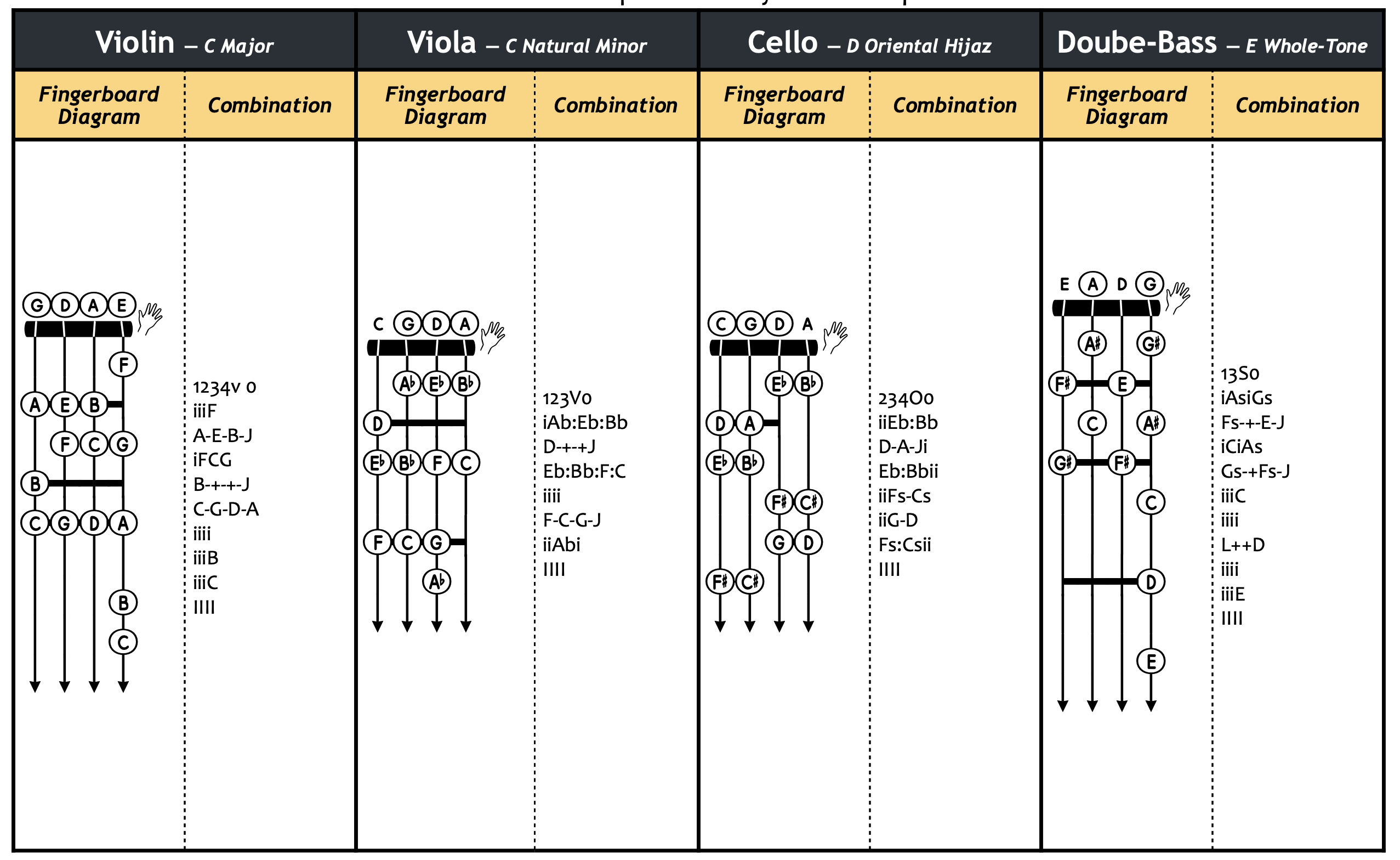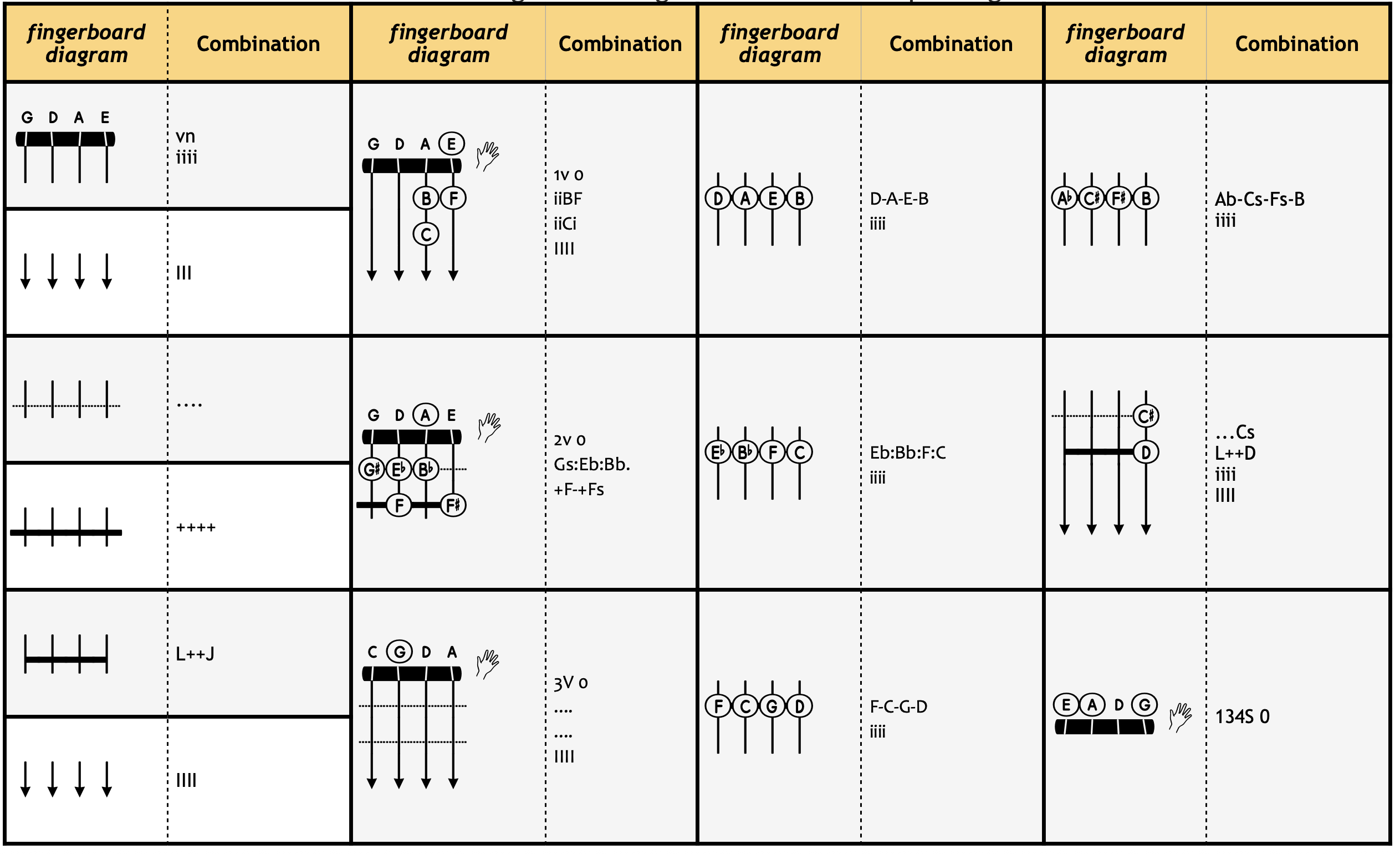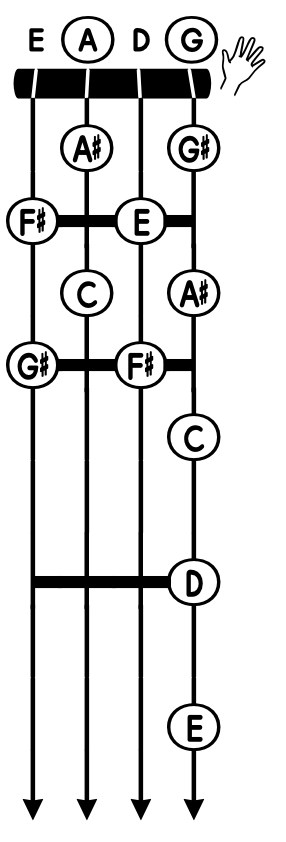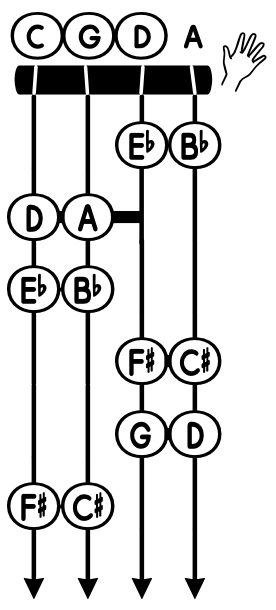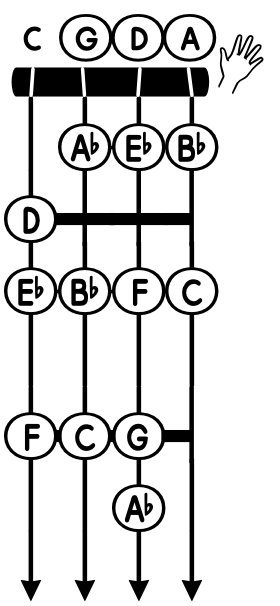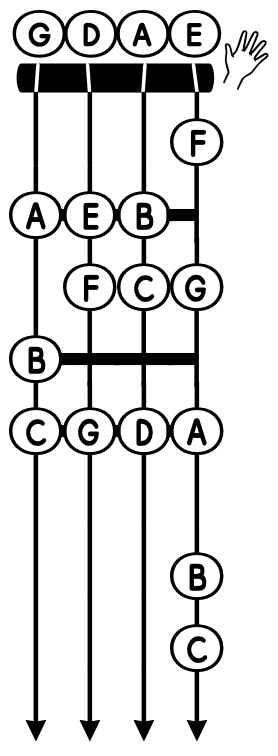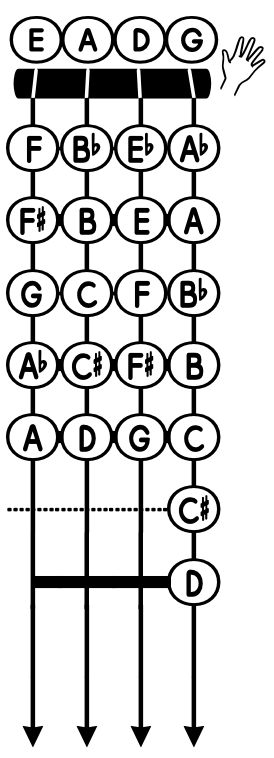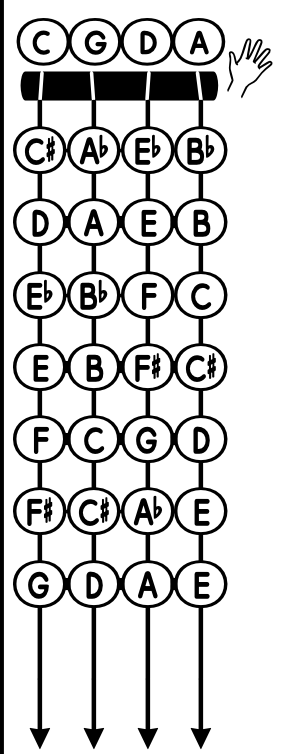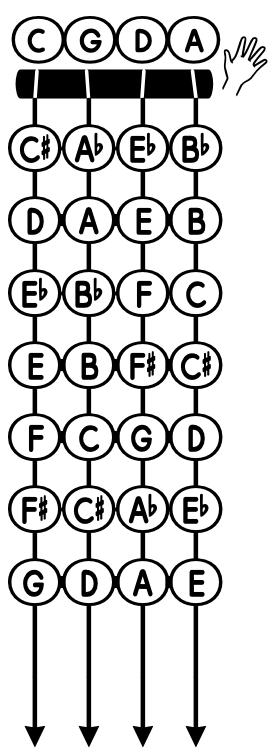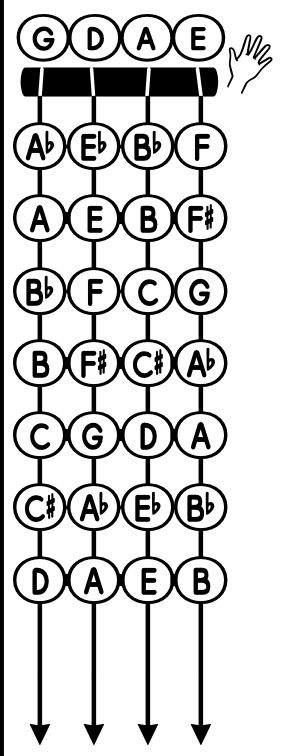
FingStrings: The Ultimate Font for String Instrument Education
FingStrings is a revolutionary font that empowers teachers and students to design custom diagrams for violin, viola, cello, and double bass. With this innovative tool, users can effortlessly illustrate finger positions on the neck and highlight specific pitches, making it an invaluable resource for elementary string instrument instruction.
Beyond basic fingering charts, FingStrings allows educators to place scale diagrams directly above lead sheets, giving students a clear visual reference for understanding scales, musical runs, and complex structures. Whether you’re developing lesson materials or creating comprehensive method books, this versatile font streamlines the process with ease and precision.
Exclusively crafted for string instrument educators, FingStrings bridges the gap between theory and practice by delivering unmatched clarity and visual comprehension. From beginner exercises to advanced techniques, both teachers and students will benefit from this one-of-a-kind educational tool that transforms the way string music is taught and learned.